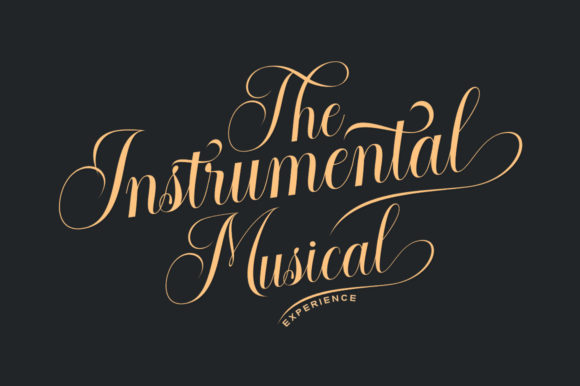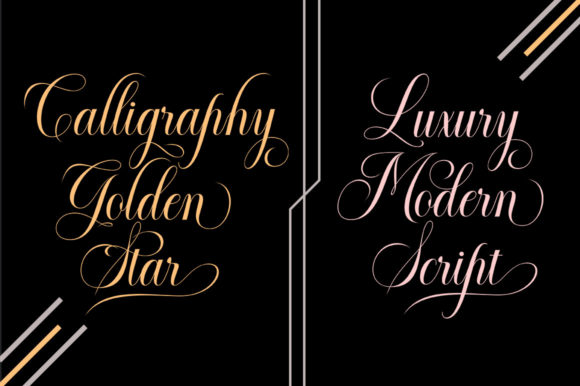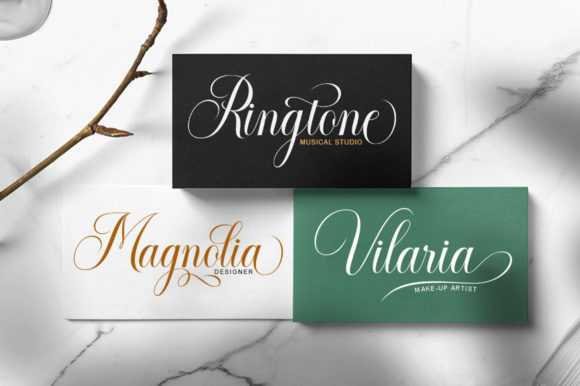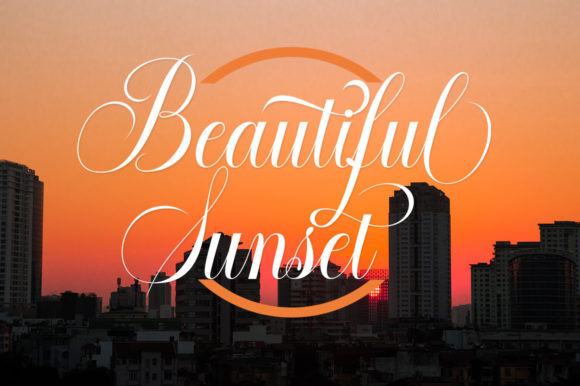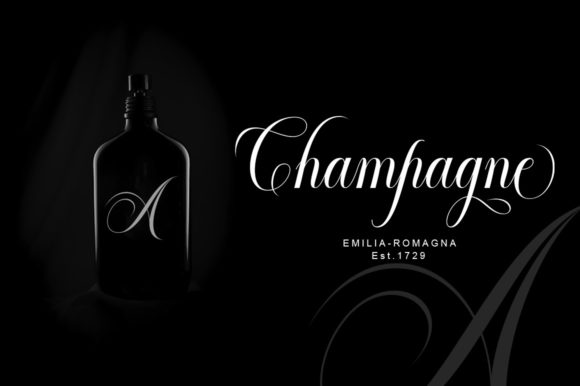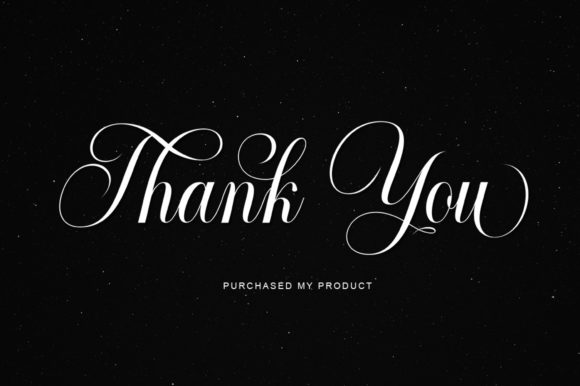
The Perfect Blend of Elegance and Whimsy: Discover the Alevander Font
Have you ever stumbled upon a font that instantly sparks your creativity and inspires you to create something truly special? For many designers, that moment is a game-changer. It’s the moment when the right font comes along and helps bring their vision to life. That’s exactly what the Alevander Font does – it’s a beautiful script font that combines elegance and whimsy to create a truly timeless style.
With its PUA encoded feature, accessing all of the glyphs and swashes is a breeze, allowing you to create spectacular designs that stand out from the crowd. Whether you’re a seasoned designer or just starting out, the Alevander Font is a valuable addition to your toolkit. Its unique style and versatility make it perfect for a wide range of projects, from elegant invitations to playful branding materials.
- Unique Characteristics: Alevander Font is a modern, elegant script font with a unique blend of cursive and calligraphic elements, featuring a wide range of swashes and flourishes.
Alevander Font Review
Overall, I’d say the Alevander Font has its charm, but it’s not without its flaws. Let’s break it down.
- Unique character: The Alevander Font has a distinct, hand-drawn feel that can add a touch of personality to your designs.
- Wide language support: It supports a wide range of languages, making it a great choice for multilingual projects.
- Good legibility: The font is relatively easy to read, even at smaller font sizes.
- Font weight limitations: The font only comes in a few weights, which can limit its versatility in certain design contexts.
- Lack of italic styles: There’s no italic version of the font, which can make it harder to create emphasis or set off quotes.
- Not ideal for body text: While the font is readable, it’s not the best choice for large blocks of body text due to its unique, cursive feel.
The Alevander Font is a great choice for headings, titles, and other design elements where you want to add a touch of personality. However, it’s not the best fit for body text or projects that require a lot of font weights or styles. With some careful planning and selection, though, it can be a great addition to your design toolkit.
Tips: Use Alevander Font for headings and titles to add a touch of elegance and sophistication to your designs.
Alevander Font is ideal for:
- Designing business cards and stationery.
- Creating presentations and reports.
- Designing website headers and titles.
Tips: Experiment with Alevander Font in different contexts to find the perfect use case for your designs.
Alternatives to Alevander Font for Designers
Montserrat is a sans-serif font designed by Julieta Ulanovsky. It is clean, modern, and highly legible. Montserrat is perfect for use in digital interfaces, signage, and publishing. It is often used in headings and titles to add a touch of sophistication and elegance.
Comparison to Alevander Font: Montserrat is more geometric and modern than Alevander Font, which has a more traditional feel. While Alevander Font has a softer, more rounded appearance, Montserrat is sharp and angular.